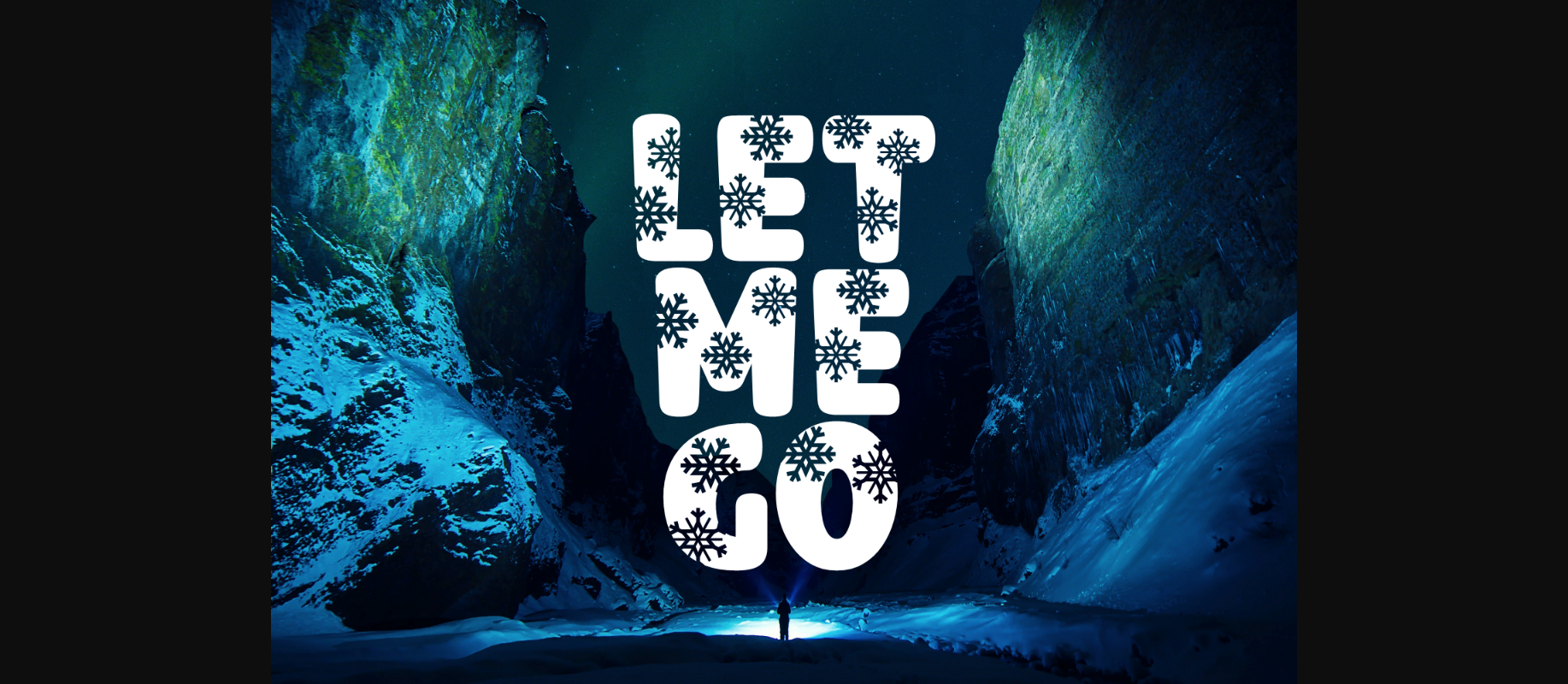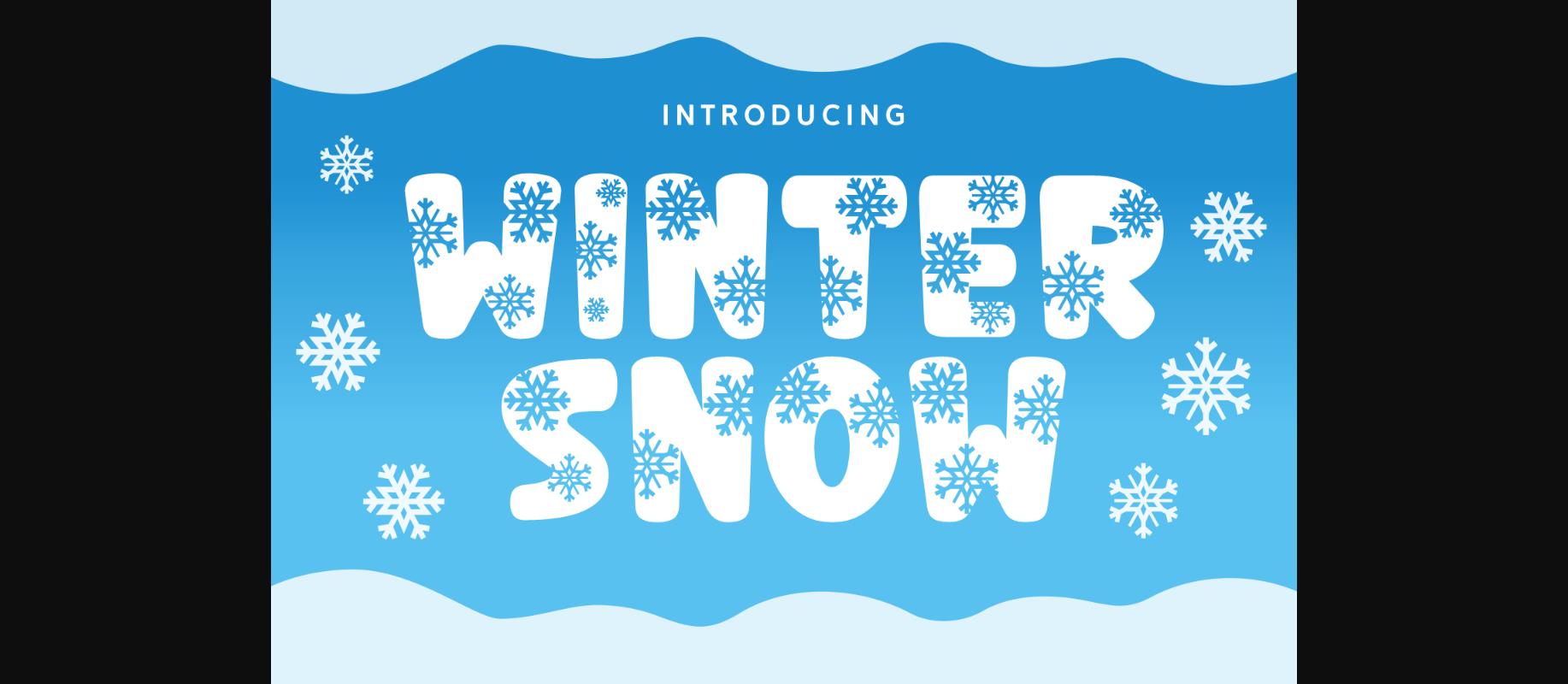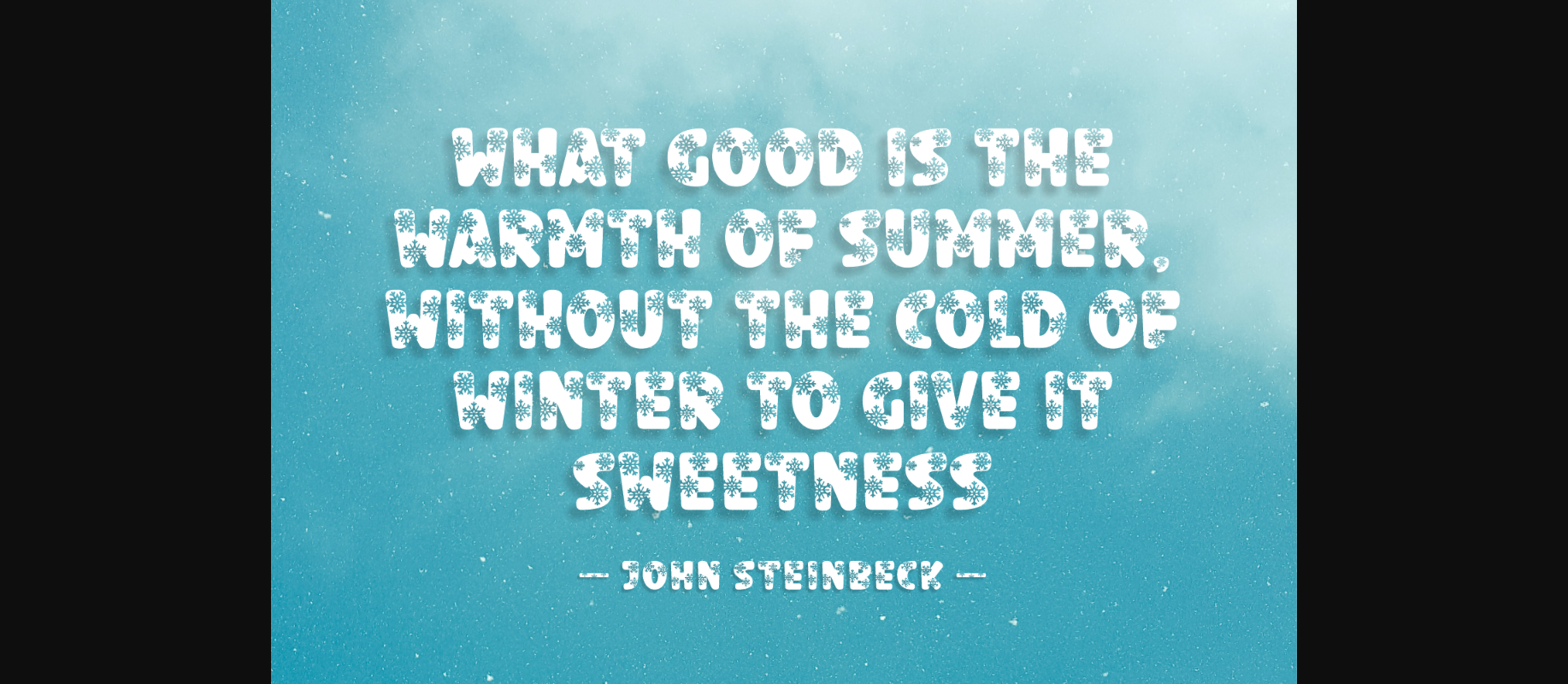
Winter Snow Font
About Winter Snow Font
Winter Snow is an easy-to-read display font that conveys impeccable friendliness. Whether you’re using it for crafts, digital design, presentations, or making greeting cards, this font has the potential to become your favorite go-to font, no matter the occasion!